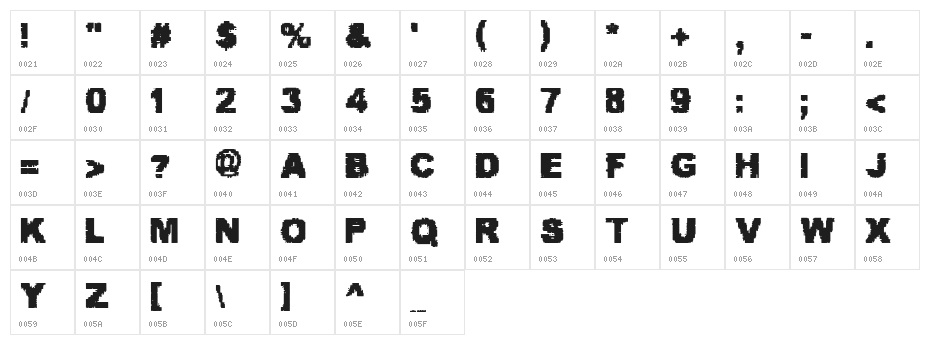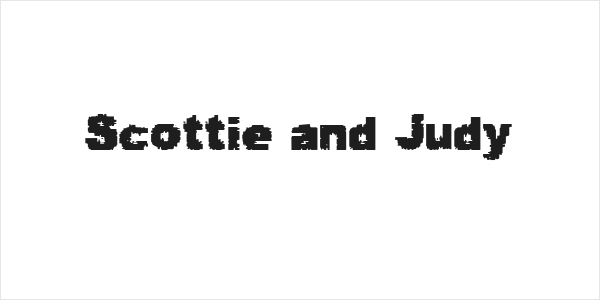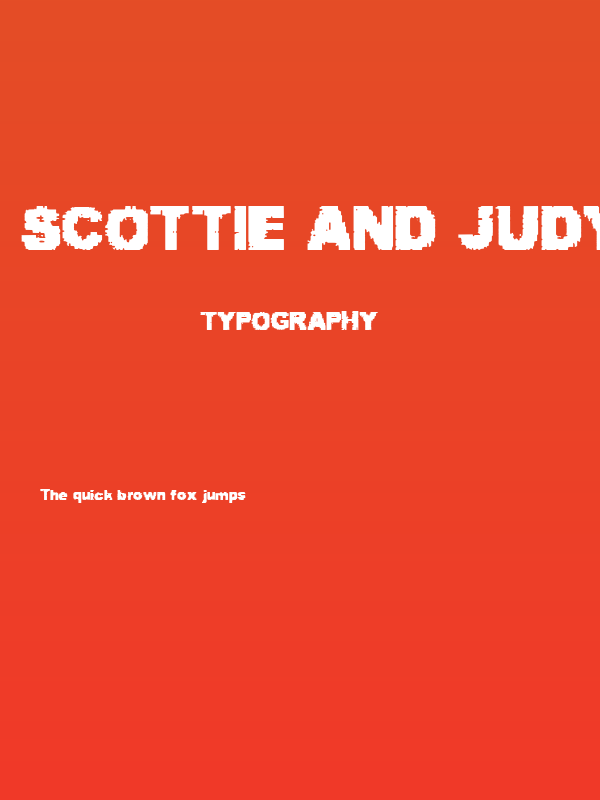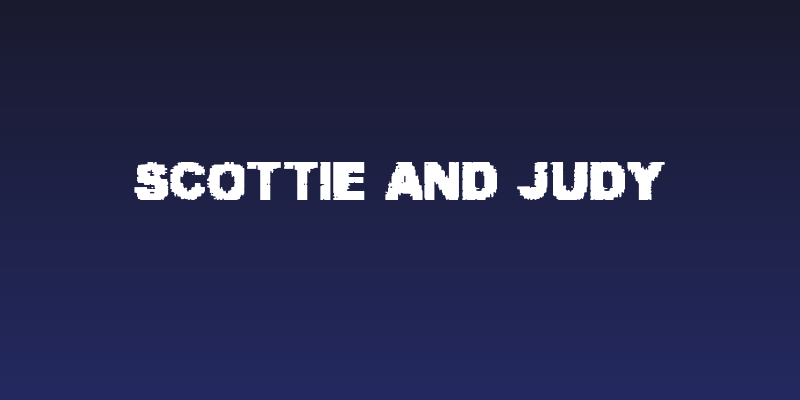
Scottie and Judy Font
Scottie and Judy Description
This font features a bold and distressed style, characterized by its rough, textured edges and strong presence. The uppercase and lowercase letters maintain a consistent weight, giving it a cohesive look despite the rugged appearance. The numerals and special characters follow the same design, ensuring uniformity across all glyphs. This font's unique style makes it stand out, perfect for projects that require a bold statement. The distressed texture adds a vintage or grunge feel, making it suitable for creative and artistic applications.
Overall StyleVintage
Proposed ProjectsIdeal for posters, album covers, branding for edgy products, or any design needing a vintage or grunge aesthetic.